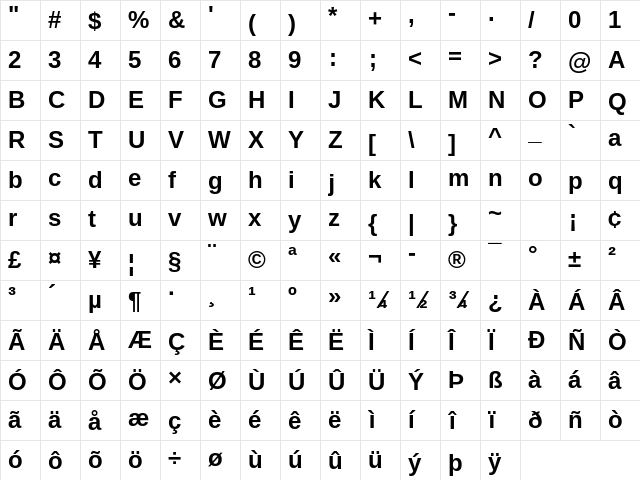
Arimo NF Bold
Foundry: Monotype Imaging Inc.
Designer: Steve Matteson
Design Context for Arimo NF
Arimo NF is a composed and adaptable typeface that performs quietly and consistently across a wide range of design contexts. Its bold stroke weight gives it real presence on the page.